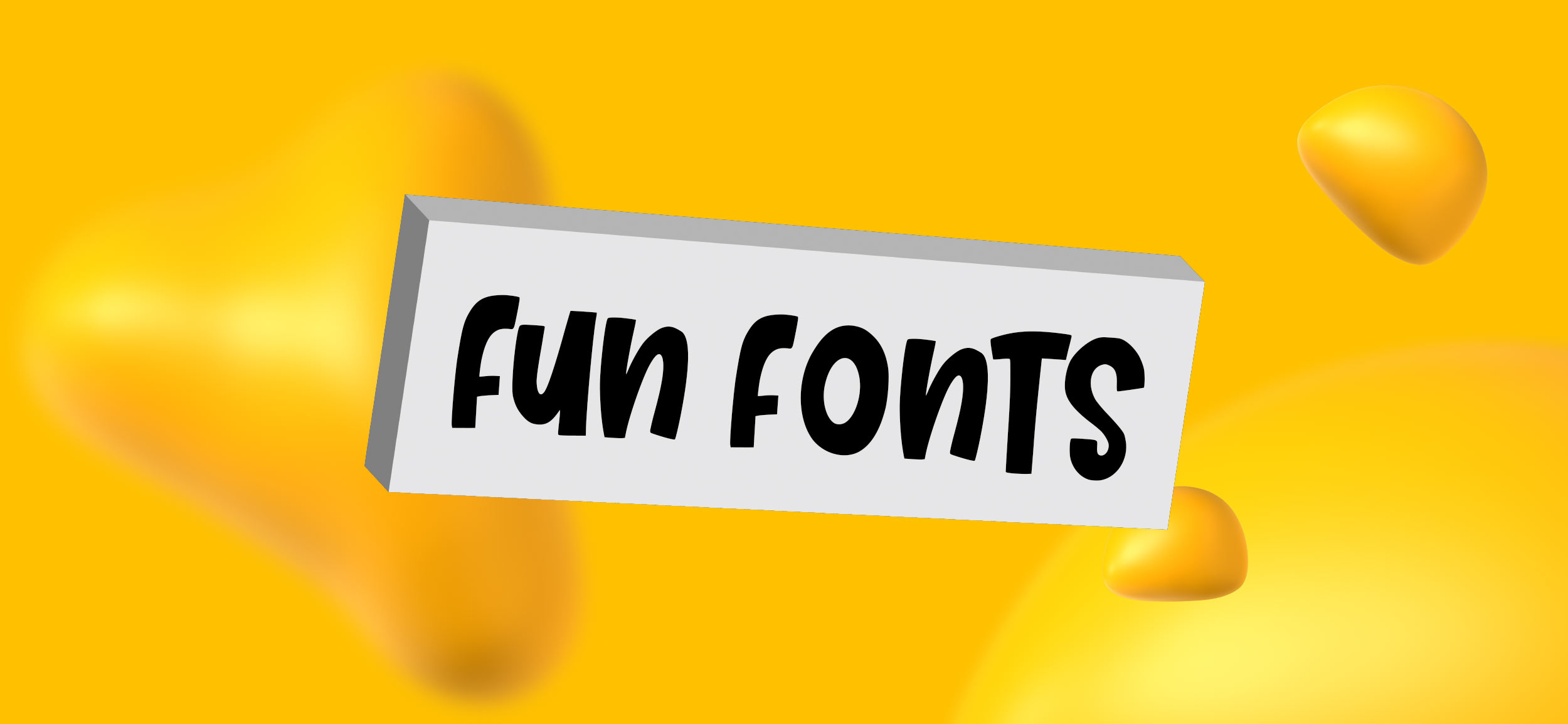
In the world of design, every line and curve plays a crucial role in the look and feel of your final result and that extends to the fonts you use.
So, what are the best fonts for graphic design?
The Best Fonts for Graphic Design
Without further ado, we present to you our picks of the best fonts for designers and graphic design projects everywhere!
Serif Fonts
Serif fonts are a type of font characterized by decorative flicks or strokes (serifs!) attached to the ends of the strokes that make up each letter or symbol.
The serifs can take a variety of forms, like bracketed serifs, unbracketed serifs, or slab serifs. Whatever style serif your font uses, you’ll usually see the decorations at the tops and bottoms of the letter strokes.
Here is a list of our favorites!
- Ogg — Ogg is a calligraphic and elegant typeface inspired by the hand lettering of 20th century book designer, Oscar Ogg.
- Adelle — A versatile and authoritative slab serif font with tons of personality!
- Georgia — A classic font commonly used for web content for its on-screen readability.
- Bodoni Poster — A bold and eye-catching version of the classic Bodoni typeface used for strong visual impact.
- Didot — A high-contrast font used to inject elegance and sophistication in your design.
- Times New Roman — We know, we know. Years of this font being the default for high school research papers may have left a bad taste in your mouth, but hey, it’s a default for a reason! This is a classic font widely used for its readability in print.
- Garamond — Another classic font for a legible and refined design.
- GT Super — A contrasting font that captures the expressiveness of display fonts of the ‘70s and ‘80s!
- ITC Slimbach — Named for its designer, Robert Slimbach, this font is inspired by German fonts for a contemporary text font with a progressive look.
Best Uses for Serif Fonts
Serif fonts are extremely versatile and can be used for many different things.
They’re particularly well-suited for print material and formal documents due to their readability. Because they’re so easy on the eyes, you may also see them used in company logo design, invitations and stationery, and body text on websites.
Sans Serif Fonts
Since serif fonts are characterized by their decorative flicks, it stands to reason that sans serif typefaces are fonts that do not have those extra little embellishments.
They’re clean and simple typefaces, giving them a modern and straightforward look.
Here is a list of our favorites!
- Avenir Next — A clean and versatile font known for its geometric design.
- Brandon Grotesque — A neo-grotesque font with a clean and modern sans serif design and an enduring appearance.
- Graphik — Another neo-grotestque font. Convenient and modern with low contrast details.
- Proxima Nova — A hybrid font that combines modern proportions with a geometric appearance.
- Sweet Sans Pro — A font that was inspired by engraver’s lettering templates of the early 20th century.
- Inter — A tall and extremely readable font carefully designed with computer screens in mind.
- Geist — Modern and stylish, known for its clean lines and contemporary appearance.
- Satoshi — A geometric font with a futuristic and tech-inspired design!
- Manrope — Simple and readable. A great choice for design work.
- Gotham — This versatile, no-nonsense font that’s popular for its clean and modern design.
- Frutiger — Designed by Swiss type designer, Adrian Frutiger, this is a clear and highly legible font, no matter the distance or size.
- Comic Sans — Just kidding.
Best Uses for Sans Serif Fonts
Due to their clean and modern appearance, sans serif fonts are the go-to choice for digital formats like websites, apps, and anything on a screen that needs to be legible.
They also make a great choice for print materials like posters and brochures or branding elements like logos, headlines, and titles!
Monospaced Fonts
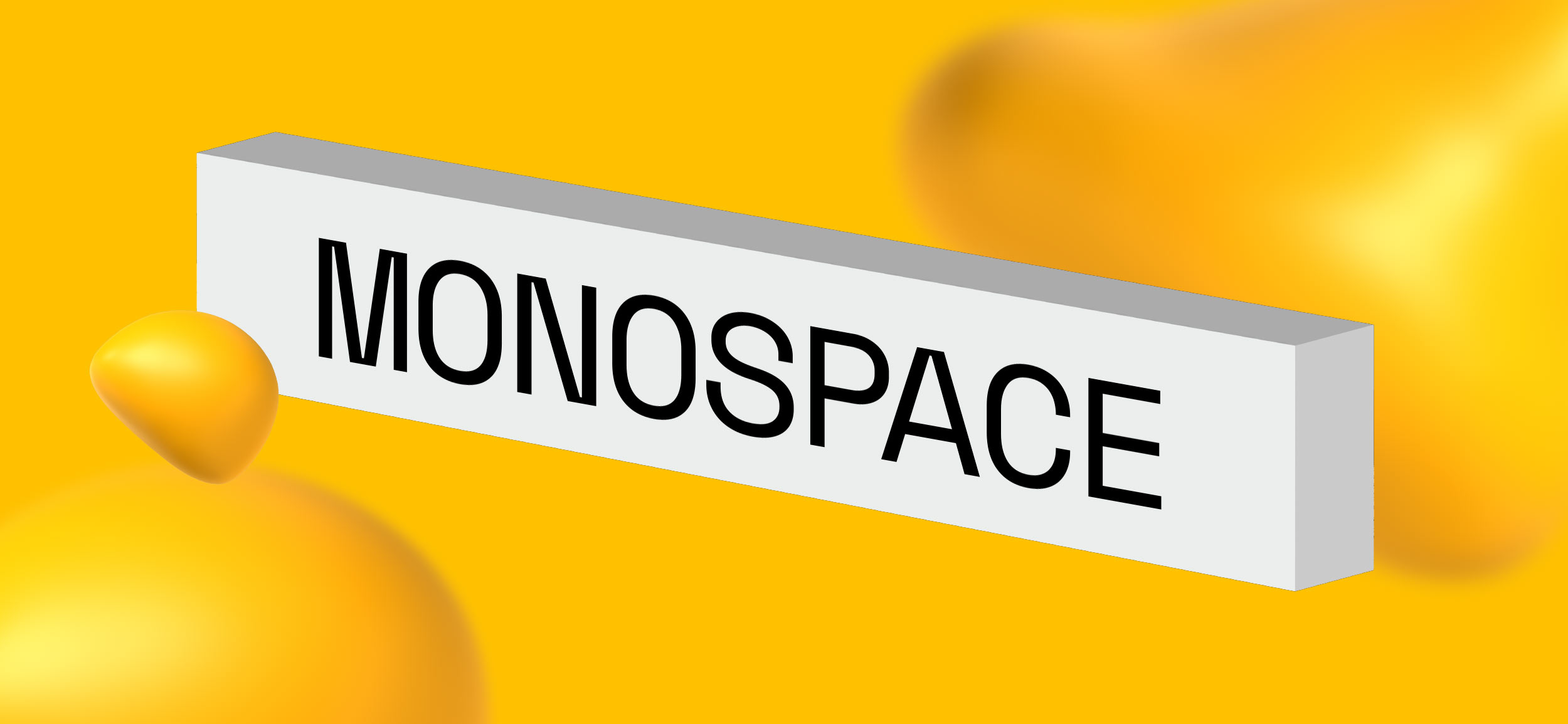
Monospaced fonts are fixed width or non-proportional fonts where each character occupies the same amount of horizontal space.
This means that, unlike proportional fonts where each character’s width differs, monospaced fonts use the same amount of space for uppercase and lowercase letters whether it’s for a skinny letter like “i” or a wide one like “w.”